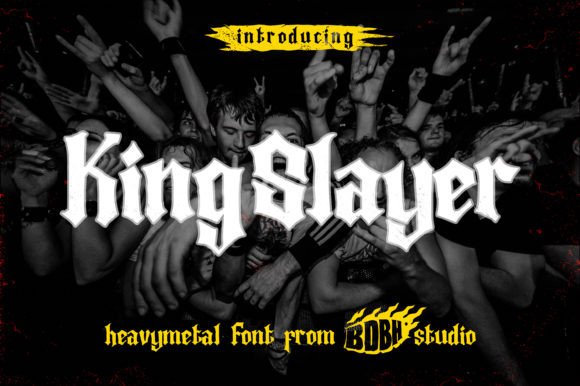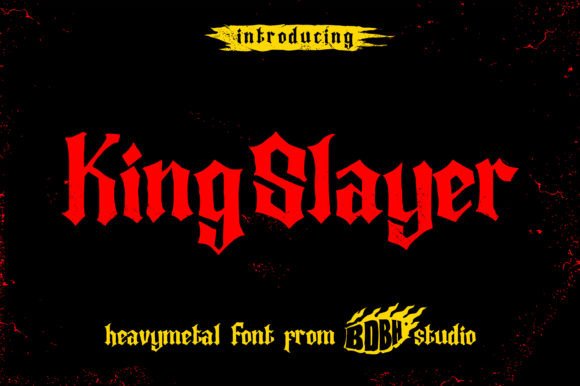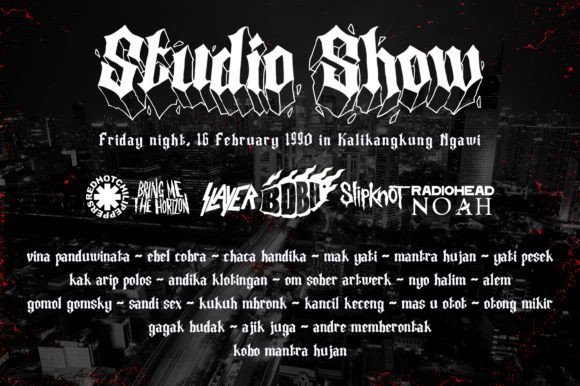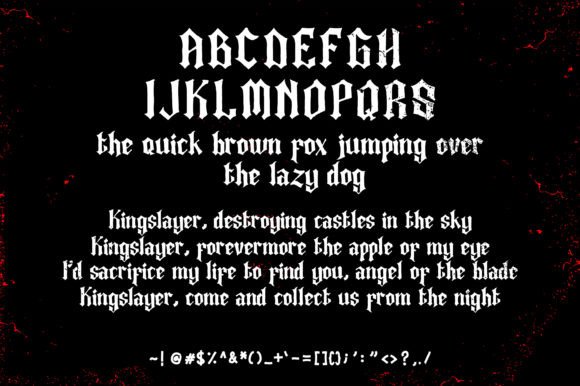
King Slayer Font: A Bold Blackletter Font for Heavy Metal Logos
About the King Slayer Font
From logos to headlines, the King Slayer Font is the perfect choice for making a lasting impression. King Slayer is a black letter font with a nice heavy metal touch. This font is ideal for any design that requires a firm touch. Add it confidently to your projects, and you will love the results.
King Slayer’s bold, aggressive forms make it perfect for headlines, posters, and logotypes demanding a strong, rebellious presence. It excels in short impactful statements, conveying power and authority. Avoid using it for body text or UI elements; its weight and complexity hinder readability in extended passages.
Pairing King Slayer effectively requires a contrasting typeface to balance its intensity. A clean, geometric sans-serif like Futura or a neutral serif such as Garamond would create visual harmony. For a more edgy aesthetic, consider pairing it with a sharp, modern script font.
Its core personality is undeniably bold and assertive, making it a powerful choice for brands projecting strength, rebellion, or a touch of dark elegance. Think heavy metal album art, fantasy game titles, or a motorcycle apparel logo.
King Slayer Font Usage Examples
King Slayer Font Example